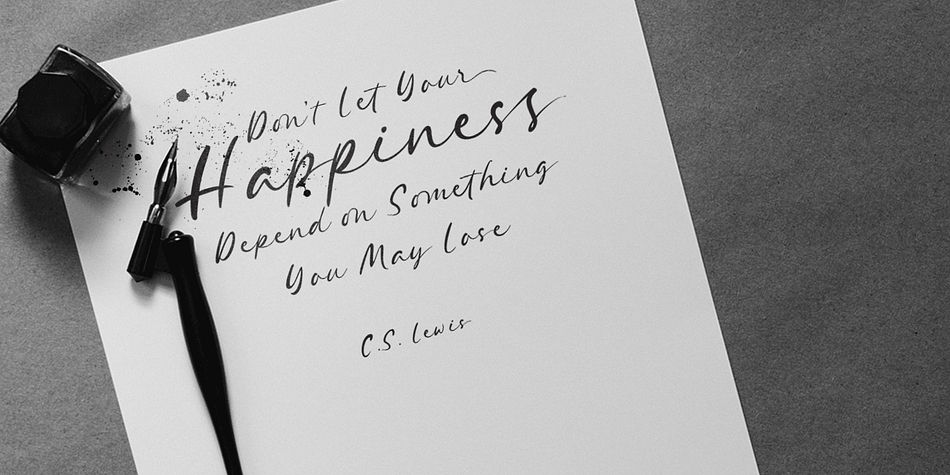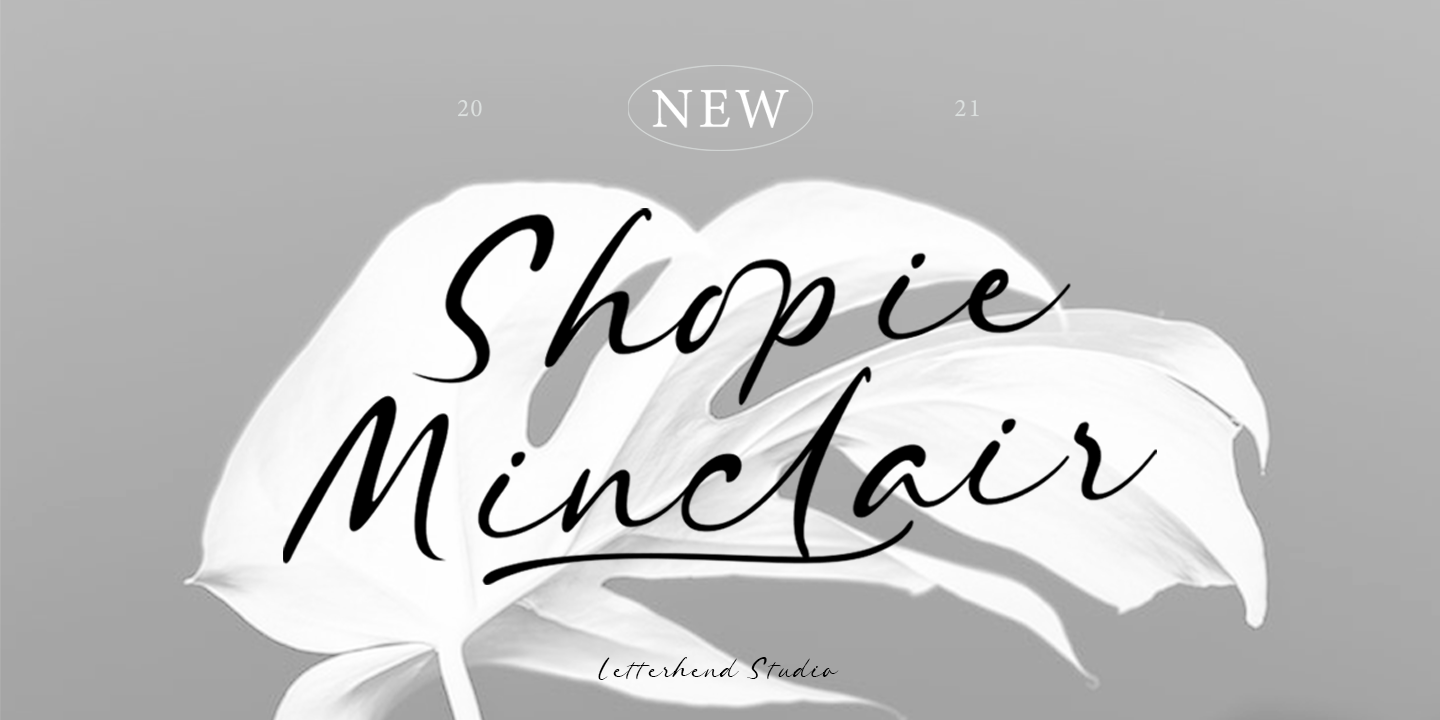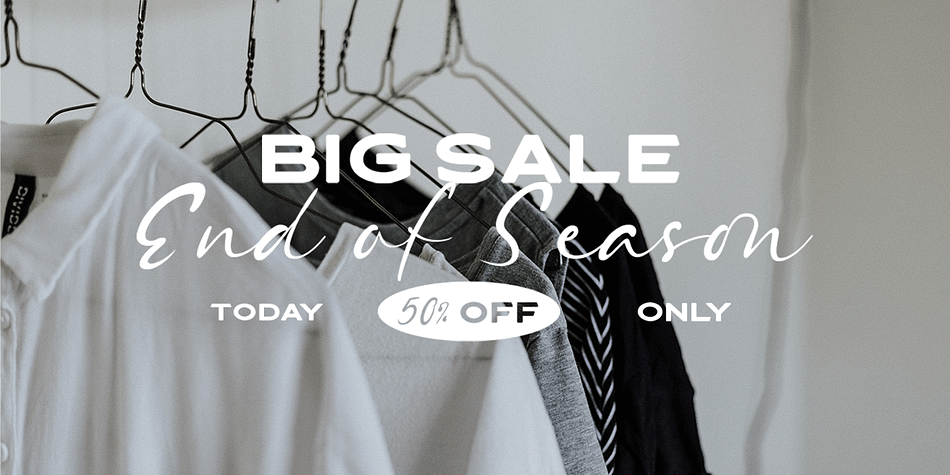
Shopie Minclair
Designed by Hendry Juanda, Shopie Minclair is a hand drawn and script font published by Letterhend Studio.
Shopie Minclair is a script font based on authentic hand writing with natural signature style. This type of font perfectly made to be applied especially in logo, and the other various formal forms such as invitations, labels, logos, magazines, books, greeting / wedding cards, packaging, fashion, make up, stationery, novels, labels or any type of advertising purpose.
uppercase & lowercase
numbers and punctuation
multilingual
alternates and ligatures
swashes